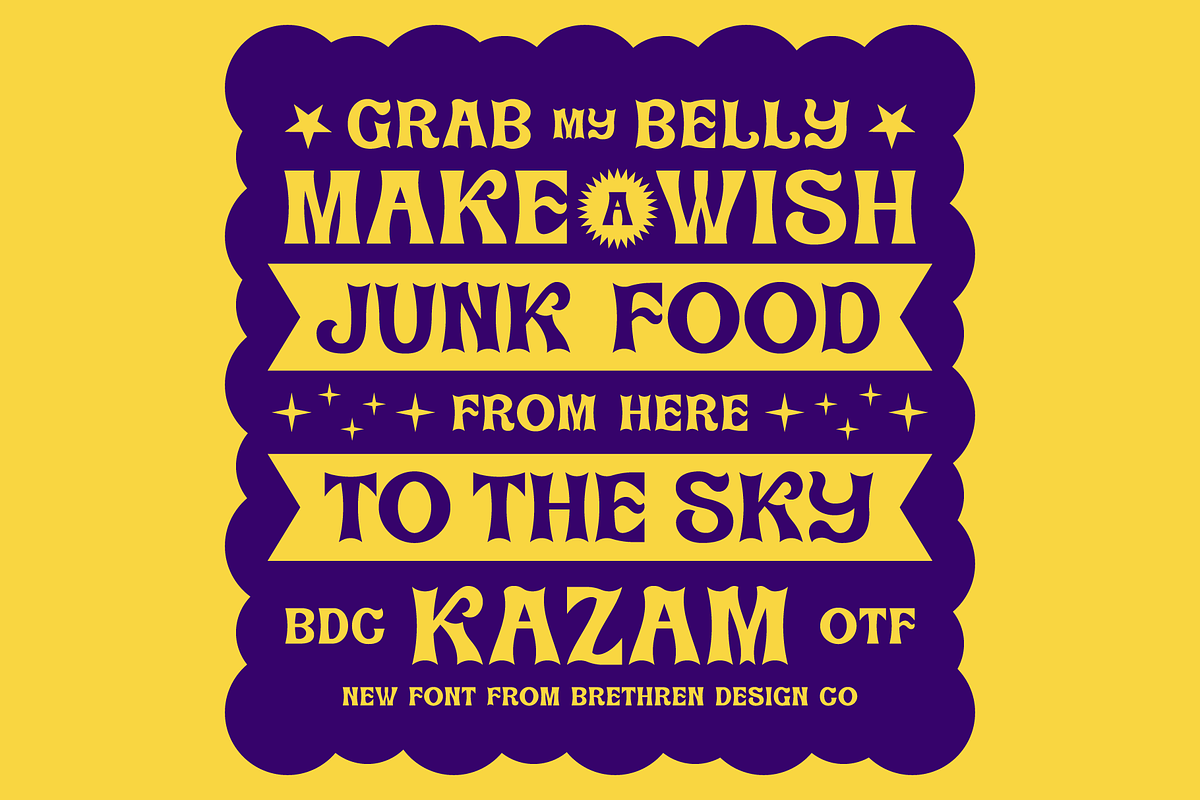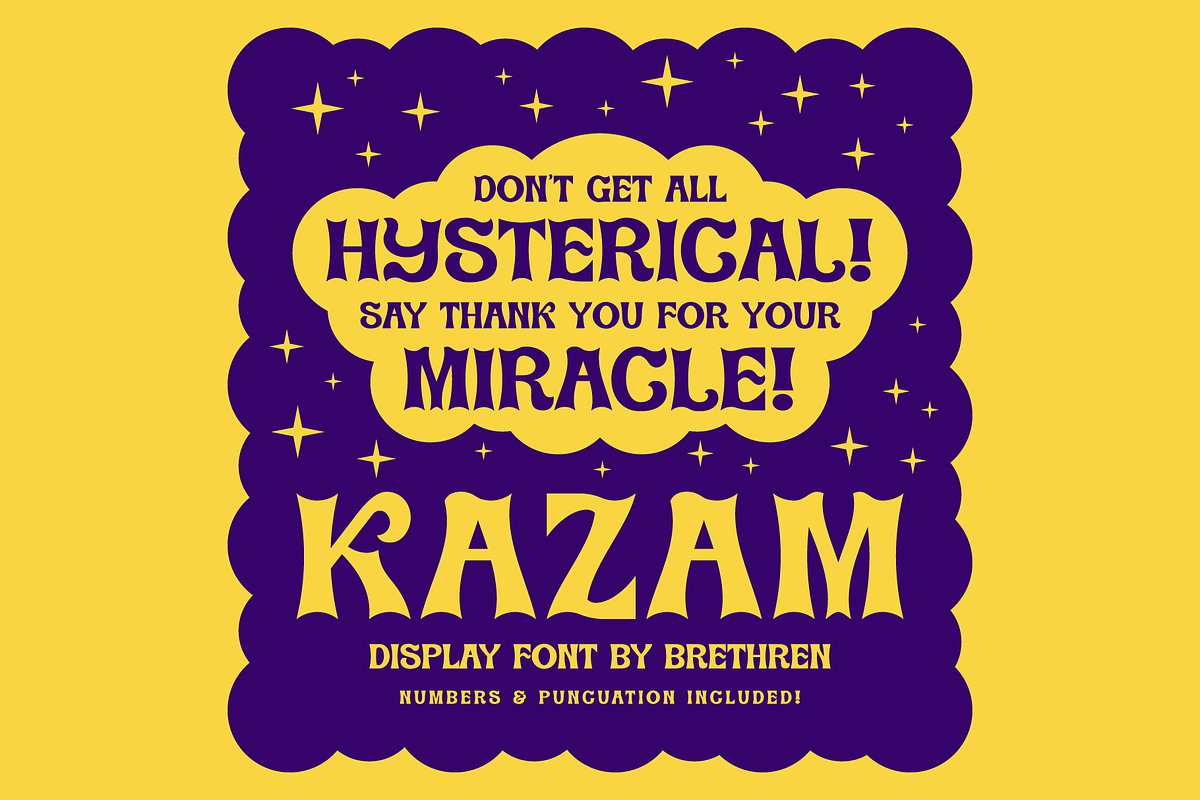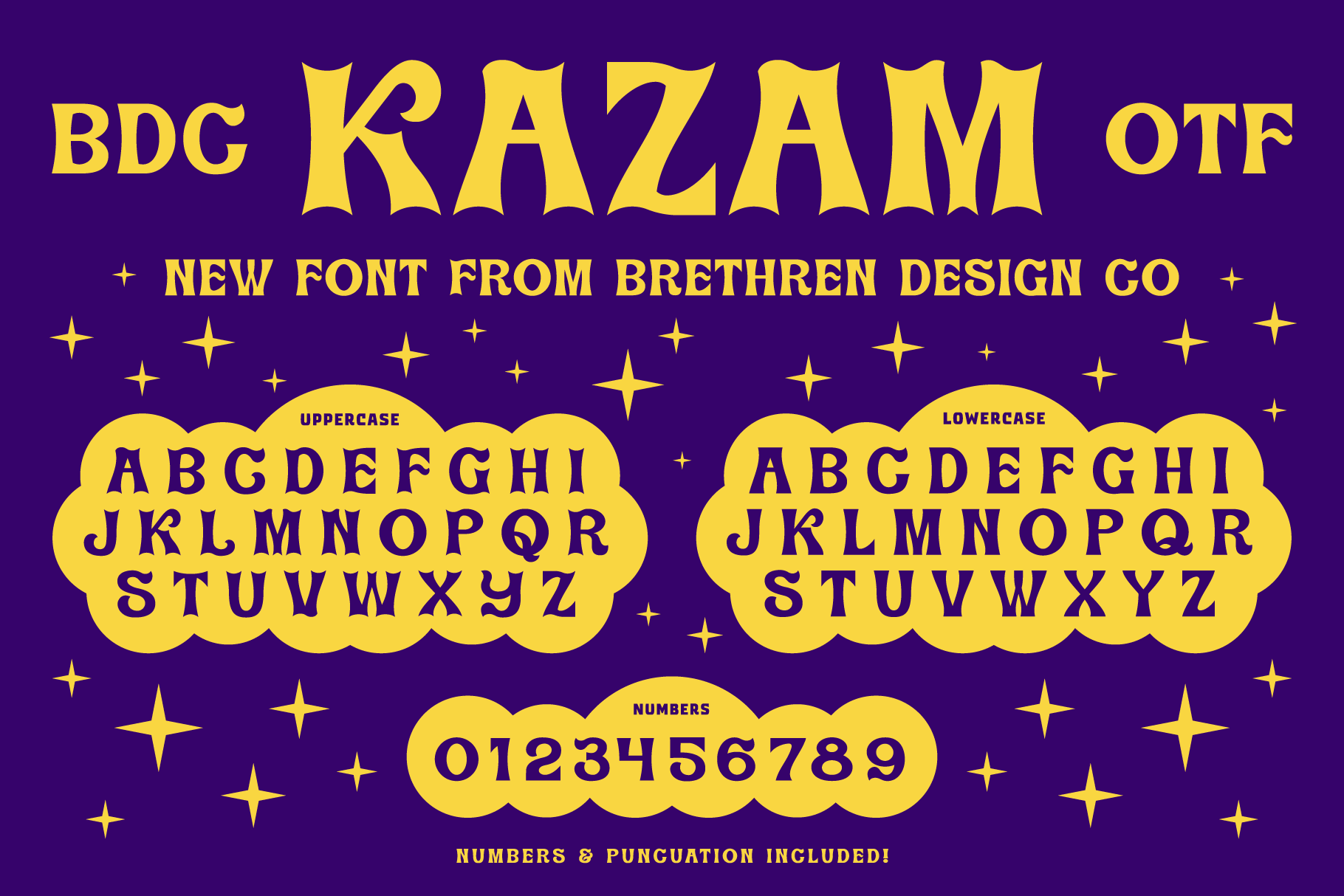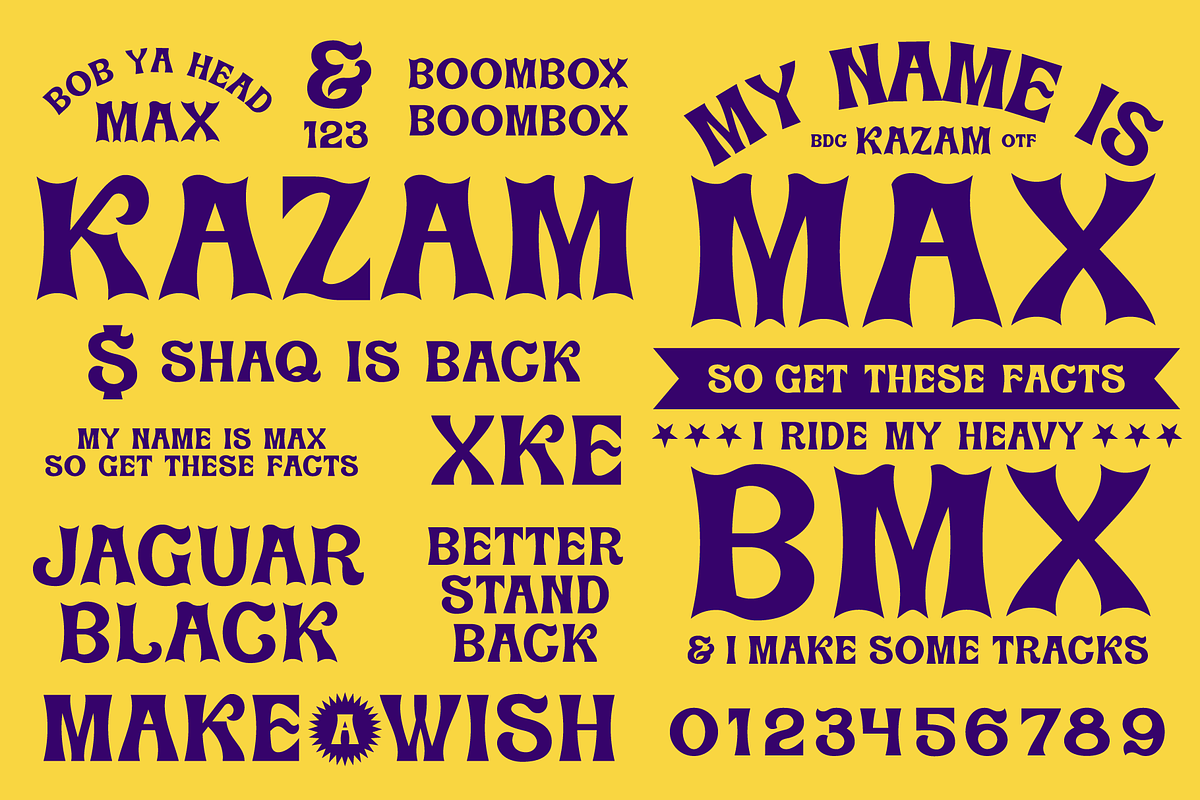
Kazam Display Font
Kazam is a snazzy new font shinning some magical nostalgia. Comes in 2 styles using lowercase/caps. Includes numbers and punctuation. Max likes this font.